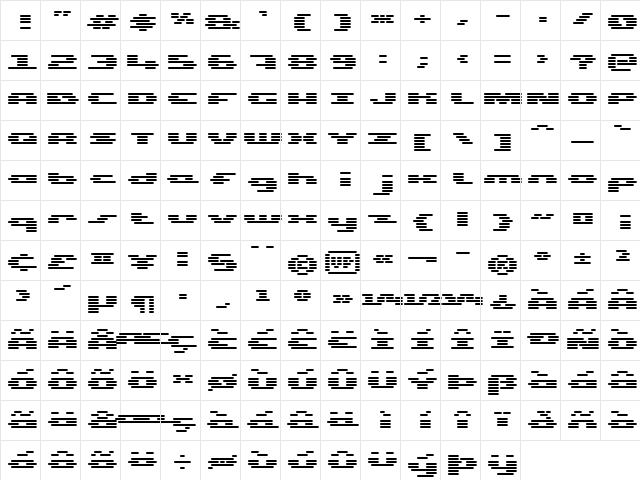
UP Tiny lcd four 8 decoH Regular Font Preview
UP Tiny lcd four 8 decoH Regular
UP Tiny lcd four 8 decoH Regular Font Details
| Foundry | UrbanPixel |
| Designer | Michel Troy - from Montreal |
Design Context for UP Tiny lcd four 8 decoH Typeface
UP Tiny lcd four 8 decoH is a composed and adaptable typeface that performs quietly and consistently across a wide range of design contexts.